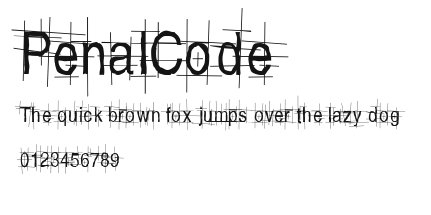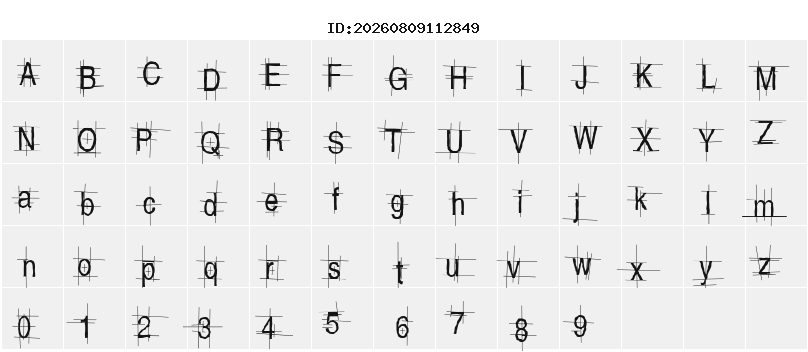
• Font Name: PenalCode
• Copyright: Designed by Elliott Peter Earls, The Apollo Program 1994.
About PenalCode.ttf
PenalCode.ttf is a modern, elegant sans-serif font designed for ultimate readability and visual harmony. Perfect for branding, headlines, web design, and print materials.